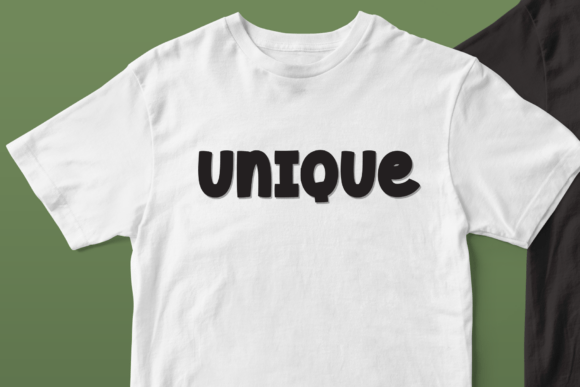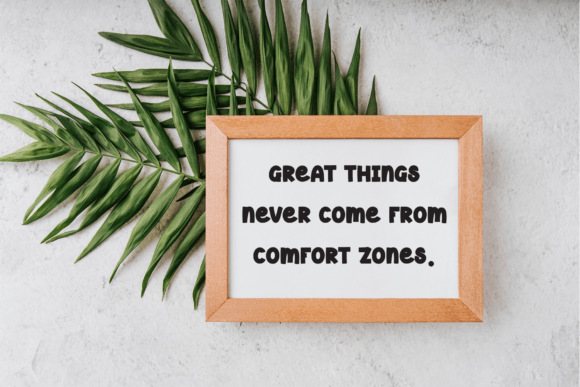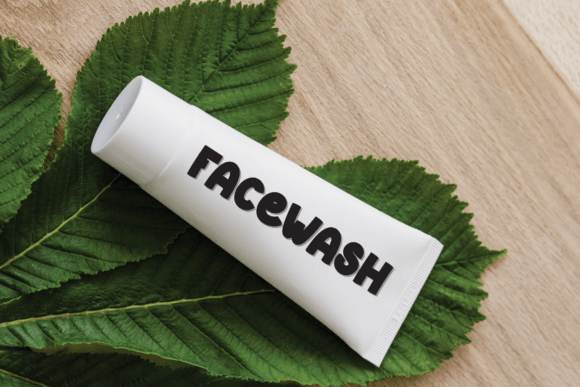
Introduction to Shine Spirit Font
Do you remember that moment when you stumbled upon the perfect font for your creative project? The one that makes your design stand out, captures the essence of your message, and leaves a lasting impression on your audience? For designers, finding that elusive font can be a game-changer. And that’s exactly what we’re excited to introduce you to – the Shine Spirit Font.
This delightful display font is a true design treasure, offering a unique blend of boldness, playfulness, and energy that’s sure to elevate any project. With its exaggerated, rounded letterforms and slight slant, the Shine Spirit Font is perfect for creating a strong, friendly, and memorable visual presence. Whether you’re working on a children’s product, casual apparel, or impactful headlines, this font is a valuable addition to your design resource arsenal.
Key Features of Shine Spirit Font
- Unique, modern design with a minimalist aesthetic, perfect for adding a touch of elegance to any creative project.
Honest Review: Shine Spirit Font
I recently came across the Shine Spirit Font, and I must say it’s a delightful addition to any creative project. The font is available for free download, which is always a bonus. One of the things that stood out to me is the high quality of the font itself. It’s crisp, clean, and perfect for adding a touch of elegance to your designs.
What works well with the Shine Spirit Font is its versatility. You can use it for a wide range of creative projects, from logos to brochures, and even for creating beautiful social media graphics. The font is also available with a transparent background, which makes it easy to use as a background or overlay.
What I Like:
- ✨ High quality font that’s perfect for creative projects
- ✨ Versatile and can be used for a wide range of designs
What I Don’t Like:
- ⚠️ Limited character set, which may not be suitable for complex text
- ⚠️ Not as many variations or styles as some other fonts
Overall, I’m really impressed with the Shine Spirit Font. It’s a great design resource that’s perfect for adding a touch of elegance to your creative projects. While it has some limitations, I think it’s a great choice for anyone looking for a high-quality, free font.